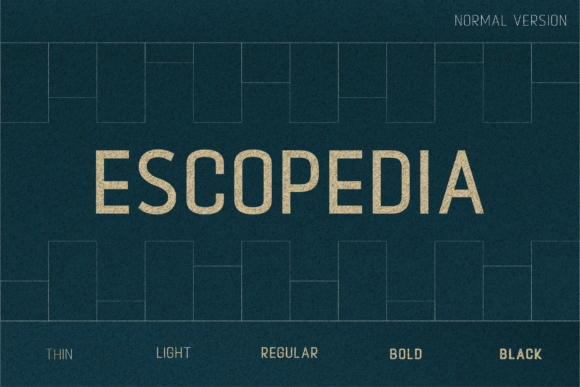
It’s that moment when the words just won’t flow, and the cursor on your screen seems to mock you. You’ve been staring at a blank page for hours, trying to find the perfect font to bring your design to life. The frustration is real, but it’s also an opportunity to explore new possibilities. And that’s exactly what happens when you stumble upon the Escopedia Font.
With its carefully crafted collection of five distinct weights – Thin, Light, Regular, Bold, and Black – the Escopedia Font is the ultimate solution for designers seeking versatility and precision. Whether you’re crafting a striking logo or designing a captivating book cover, this font adapts seamlessly to your needs, empowering you to bring your vision to life with confidence.
As a designer, you know the value of having the right tools at your disposal. The Escopedia Font is an invaluable addition to your creative arsenal, offering a level of sophistication and elegance that’s hard to find in other fonts. With its unique blend of style and functionality, it’s no wonder that this font has become a go-to choice for designers worldwide.
Escopedia Font Key Features
- Font Family: Escopedia is a sans-serif font family designed for digital use.
- Character Set: Includes a comprehensive set of characters, including Latin, Cyrillic, and Greek scripts, covering a wide range of languages.
- Unique Characteristics: Escopedia features a clean, modern design with a subtle x-height and a balanced axis, making it highly legible at various sizes and resolutions.
- Size: Available in 7 weights (Hairline, Light, Regular, Medium, Bold, Heavy, Black) to accommodate various design needs and preferences.
Escopedia Font Review
I’ve had the chance to work with the Escopedia Font, and overall, it’s a solid addition to any designer’s toolkit. Here’s what I think:
- Unique aesthetic: The Escopedia Font has a distinct, elegant feel that sets it apart from more common fonts.
- Legibility: The font is well-balanced, making it easy to read in both body text and headlines.
- Flexibility: It works well in a variety of contexts, from print to digital.
- Limited font weights: While the font is well-designed, it’s available in a limited number of weights, which can make it harder to create contrast in designs.
- Lack of italics: The absence of italics can be a drawback for designers who rely on italic text to add emphasis or create visual interest.
While the Escopedia Font may not be perfect, its unique aesthetic and legibility make it a great choice for designers looking to add some sophistication to their work. With a few more font weights and italics, it could be a true powerhouse in the world of typography.
Comparison to Escopedia Font: While Escopedia Font has a more modern and minimalist feel, Playfair Display is more ornate and traditional. Playfair Display is ideal for projects where a classic and sophisticated look is desired.